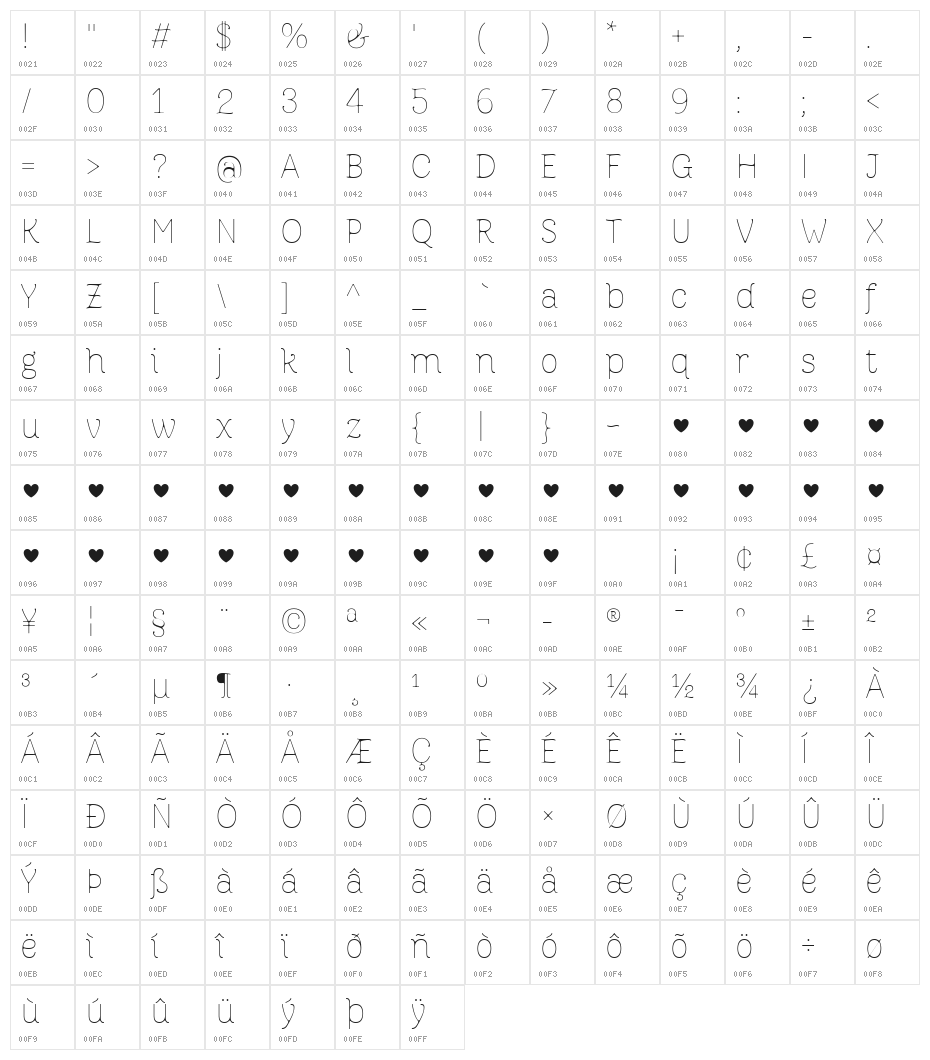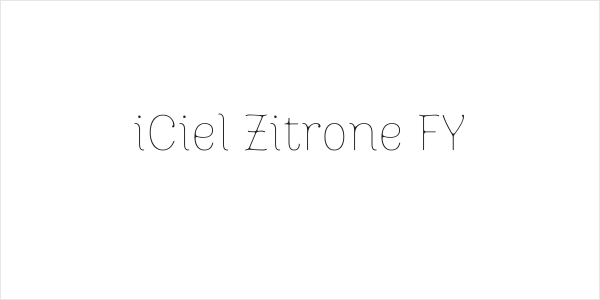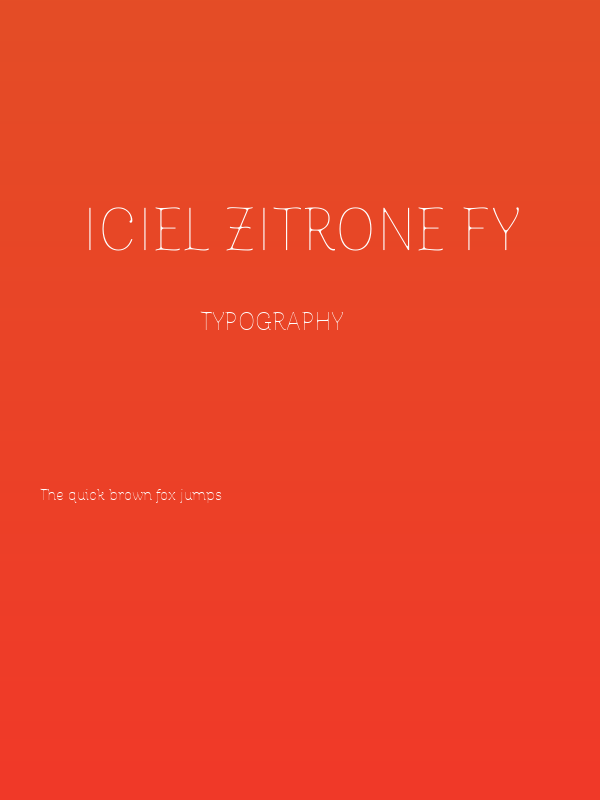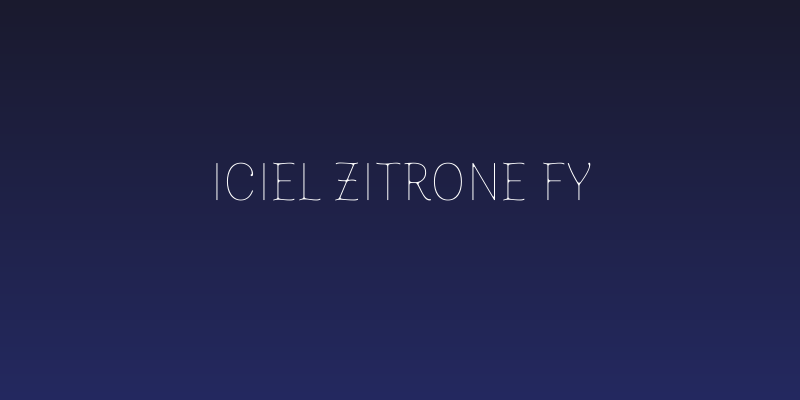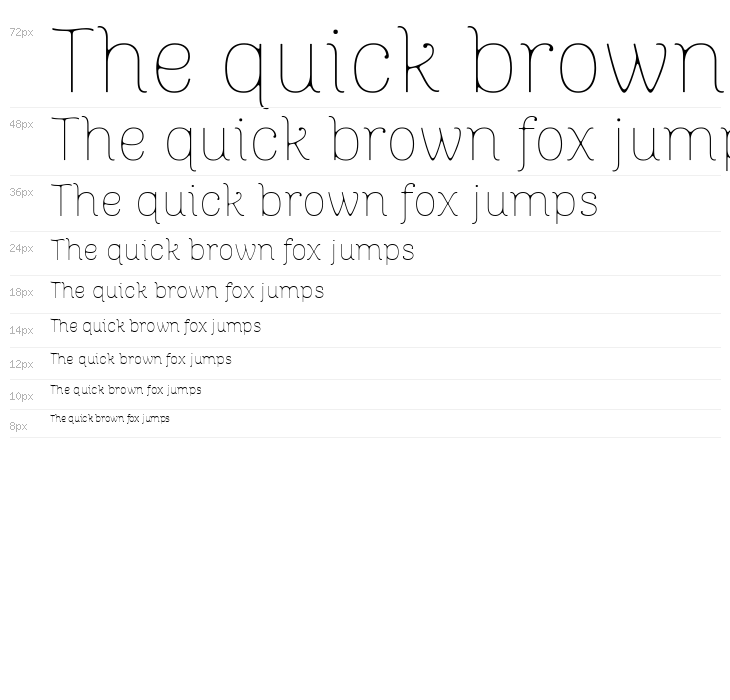
iCiel Zitrone FY Font
iCiel Zitrone FY Description
This font features a unique and playful design with a handwritten feel. The characters are slender and elongated, with subtle curves that add a whimsical touch. The uppercase letters maintain a consistent height, while the lowercase letters exhibit a slight variation in size, contributing to the font's casual and friendly appearance. The numerals are clear and easy to read, matching the style of the alphabet. Special characters are thoughtfully designed to complement the overall aesthetic. This font's distinct style makes it suitable for creative projects that require a personal and approachable look.
| Use Case | Headlines, Creative projects, Invitations |
| Proposed Projects | Ideal for greeting cards, invitations, children's books, and creative branding projects. |